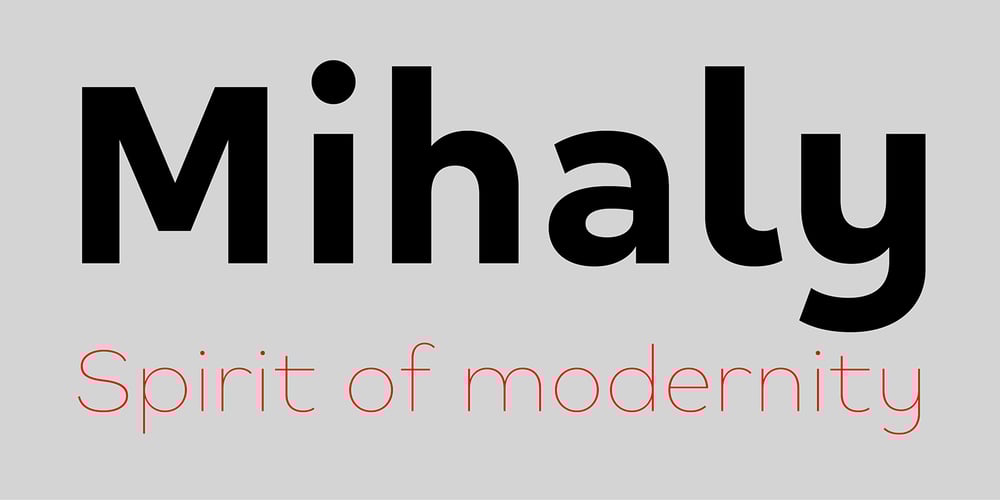
Mihaly Display Font Family was designed by Bruno Bernard and published by Alfab. Mihaly Display contains 14 styles and family package options. Mihaly is a geometric sans serif with a low contrast. It was designed with care to conserve the feeling of geometric rigor, referring to the constructivist ideal of the 20s. But the homogeneity of its proportions gives it a very modern neutrality, making Mihaly an interesting alternative to classic low-contrasted sans-serif like Din or Interstate. Designed for display setting, Mihaly Display is the first in a family of fonts, with the rest to be completed in the coming future.